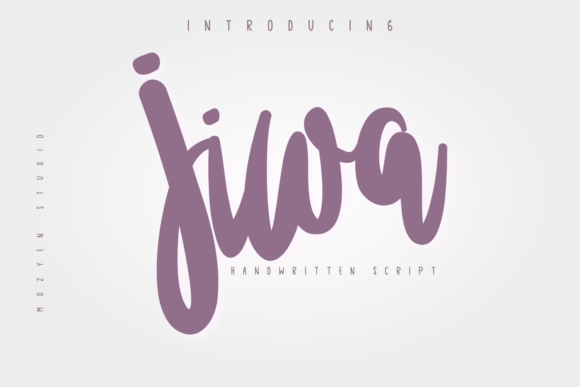
Journey into the realm of elegance and charm with Jiwa Font, a captivating script font family that dances across your designs with an air of sophistication. Inspired by the timeless art of calligraphy, Jiwa Font breathes life into your invitations, stationery, social media, and greeting cards.
Indulge in the beauty of its varying baseline, where each letter flows seamlessly into the next, creating a visually stunning rhythm. Experience the smoothness of its lines, the grace of its glyphs, and the allure of its stunning alternates that add a touch of individuality to your creations.
With Jiwa Font, your words take on a life of their own, transforming ordinary designs into extraordinary expressions. Dive into the world of Jiwa Font and let your creativity flourish. Craft wedding invitations that exude elegance, design stationary art that oozes charm, captivate your audience with eye-catching social media posts, and create greeting cards that warm hearts.
Jiwa Font is not just a font; it's an experience. It's a journey into the realm of beauty and grace, where your designs take on a life of their own. Embrace the allure of Jiwa Font and elevate your creations to new heights.